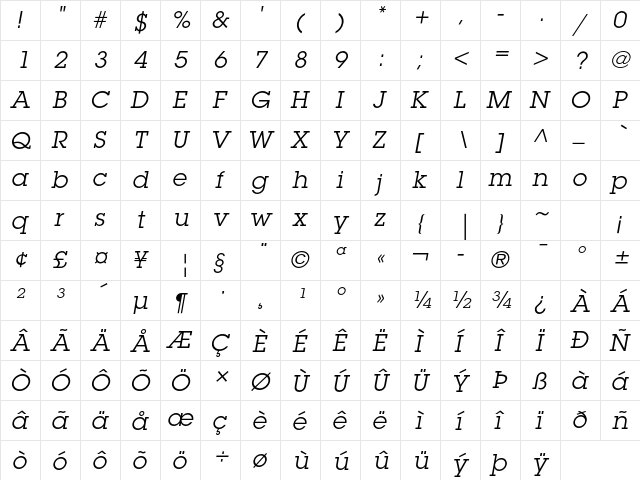
ITC Lubalin Graph Std Book Oblique Font Preview
ITC Lubalin Graph Std Book Oblique
ITC Lubalin Graph Std Book Oblique Font Details
| Style | Book Oblique |
| Designer | Herb Lubalin |
Design Context for ITC Lubalin Graph Std Typeface
ITC Lubalin Graph Std offers clean, dependable letterforms without strong stylistic allegiance, making it a practical choice for designers who need flexibility. Its italic angle brings a sense of urgency and motion to the letterforms.
Pro Tip: Use ITC Lubalin Graph Std for emphasis, pull quotes, and subheadings where its slanted energy can add rhythm to the layout.